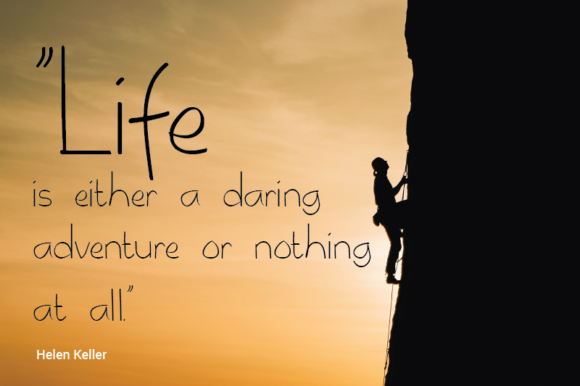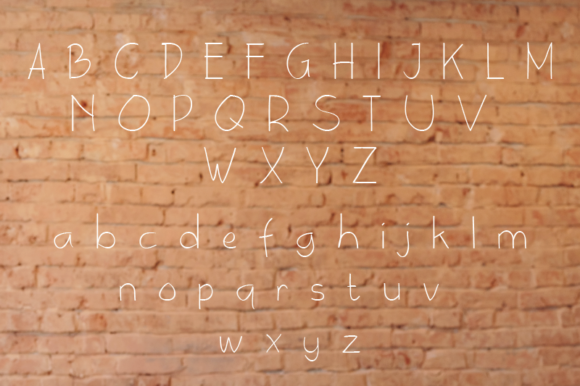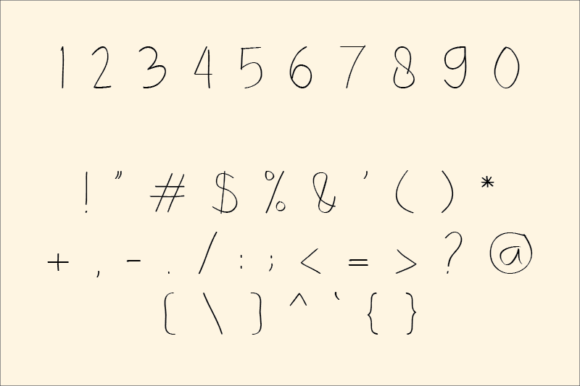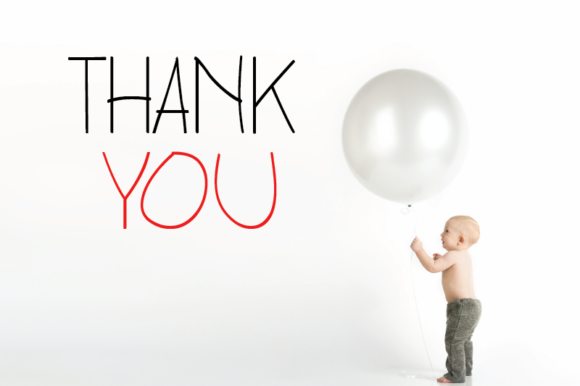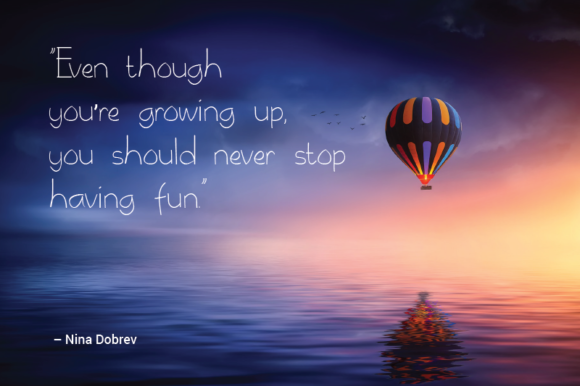
Discover the Charm of Graneda Font: A Delicate and Relaxed Handwritten Font
Are you a designer or crafter looking for a font that exudes simplicity, elegance, and a touch of whimsy? Look no further than the Graneda font. This beautiful, delicate, and relaxed handwritten font is perfect for creating stunning wedding invitations, gorgeous stationery art, eye-catching social media posts, and so much more. In this article, we’ll dive into the world of Graneda font, exploring its features, uses, and benefits, and why it’s sure to become a true favorite among designers and crafters.
The Beauty of Graneda Font
Graneda font is a masterfully designed handwritten font that boasts a delicate and relaxed aesthetic. Its simplicity is its greatest strength, making it an incredibly versatile font that can be used in a wide range of design projects. The font’s gentle curves and smooth lines create a soothing and calming effect, perfect for designs that require a touch of elegance and sophistication.
Features of Graneda Font
So, what makes Graneda font so special? Here are just a few of its key features:
- Delicate and relaxed aesthetic: Graneda font has a soft, gentle quality that makes it perfect for designs that require a touch of whimsy and romance.
- Handwritten feel: Despite being a digital font, Graneda has a beautifully handwritten feel that adds a personal touch to any design.
- Simple and elegant: Graneda’s simplicity is its greatest strength, making it easy to pair with other fonts and design elements.
- Versatile: Graneda font can be used in a wide range of design projects, from wedding invitations and stationery to social media posts and more.
Uses for Graneda Font
So, what can you create with Graneda font? The possibilities are endless! Here are just a few ideas to get you started:
- Wedding invitations: Graneda font is perfect for creating beautiful, elegant wedding invitations that set the tone for a special day.
- Stationery art: Use Graneda font to create gorgeous stationery art, including greeting cards, thank you cards, and more.
- Social media posts: Add a touch of elegance to your social media posts with Graneda font, perfect for creating eye-catching graphics and quotes.
- Branding and packaging: Graneda font can also be used for branding and packaging design, adding a touch of whimsy and personality to your brand.
Benefits of Using Graneda Font
So, why should you choose Graneda font for your next design project? Here are just a few benefits:
- Elegant and sophisticated: Graneda font adds a touch of elegance and sophistication to any design, perfect for designs that require a high-end feel.
- Easy to read: Despite its delicate aesthetic, Graneda font is incredibly easy to read, making it perfect for body text and other long-form content.
- Versatile: Graneda font can be used in a wide range of design projects, making it a great addition to any designer’s toolkit.
- Unique and distinctive: Graneda font has a unique and distinctive aesthetic that sets it apart from other fonts, making it perfect for designers who want to stand out from the crowd.
In conclusion, Graneda font is a beautiful, delicate, and relaxed handwritten font that’s perfect for designers and crafters looking to add a touch of elegance and whimsy to their designs. With its simple and elegant aesthetic, versatile uses, and numerous benefits, Graneda font is sure to become a true favorite among designers and crafters. Whether you’re creating wedding invitations, stationery art, social media posts, or more, Graneda font is the perfect choice for any design project.